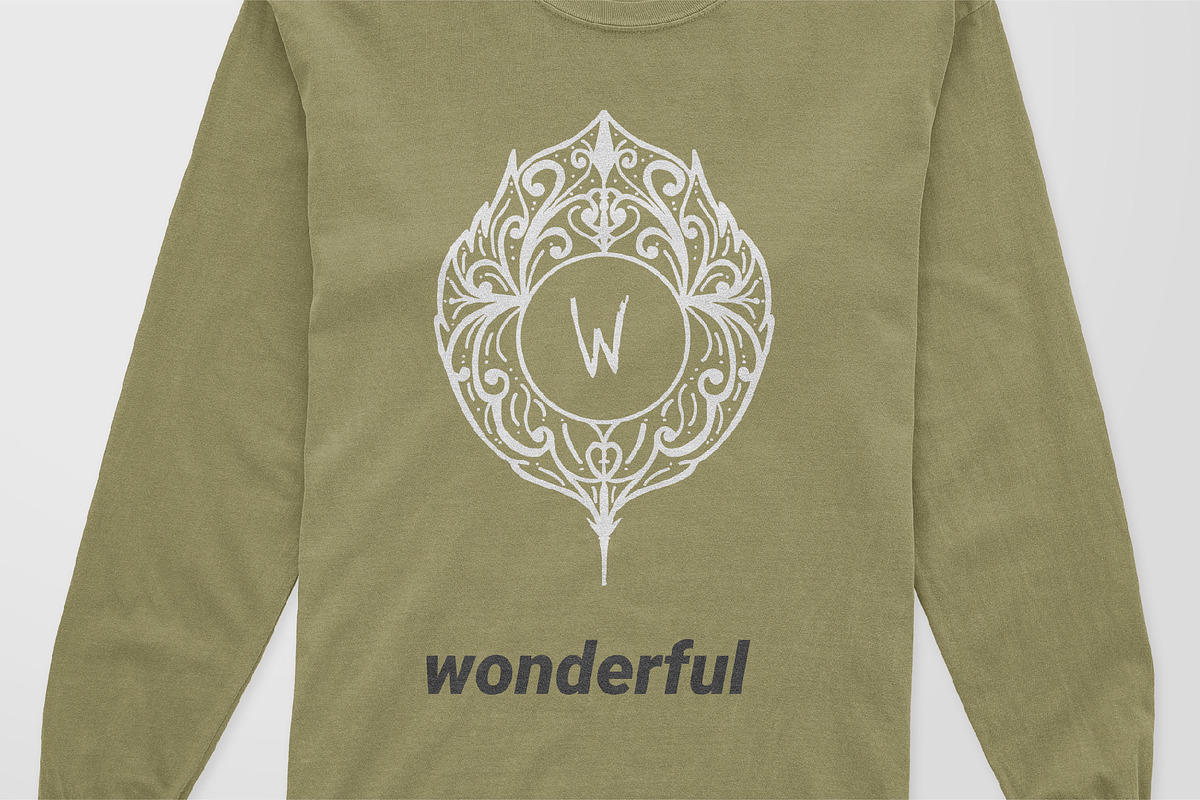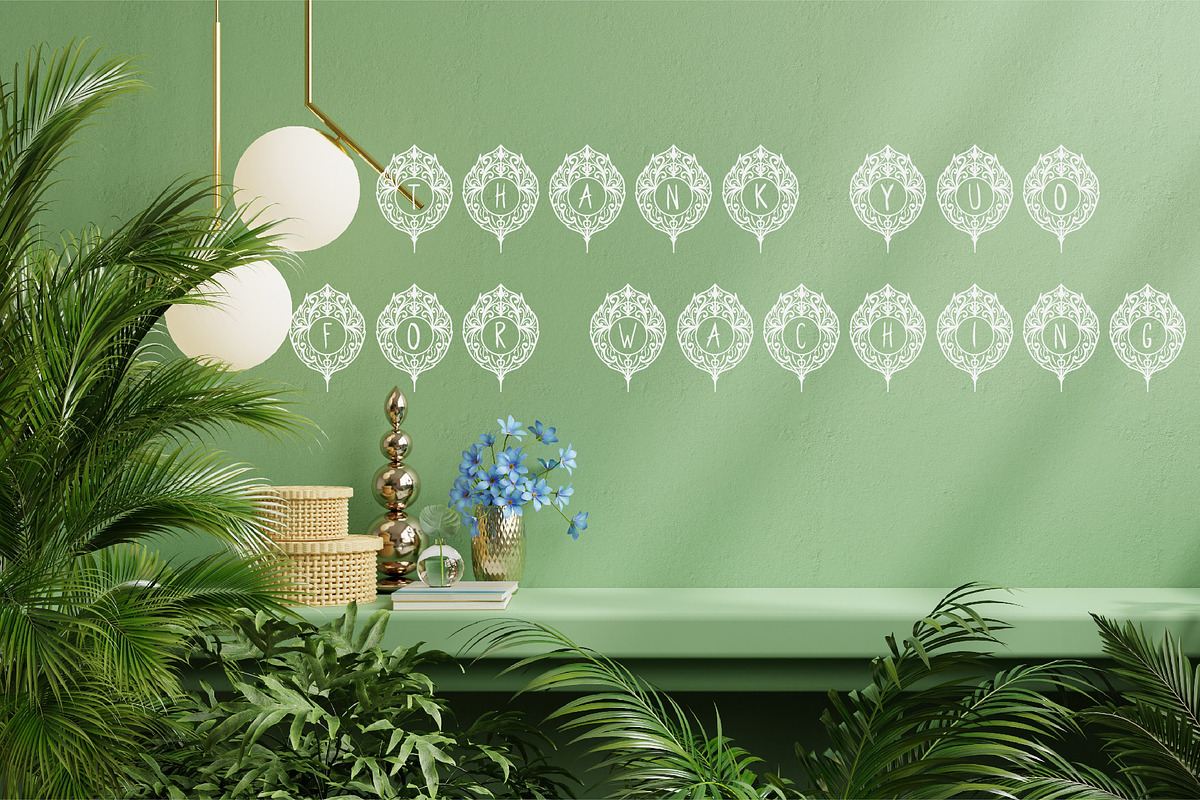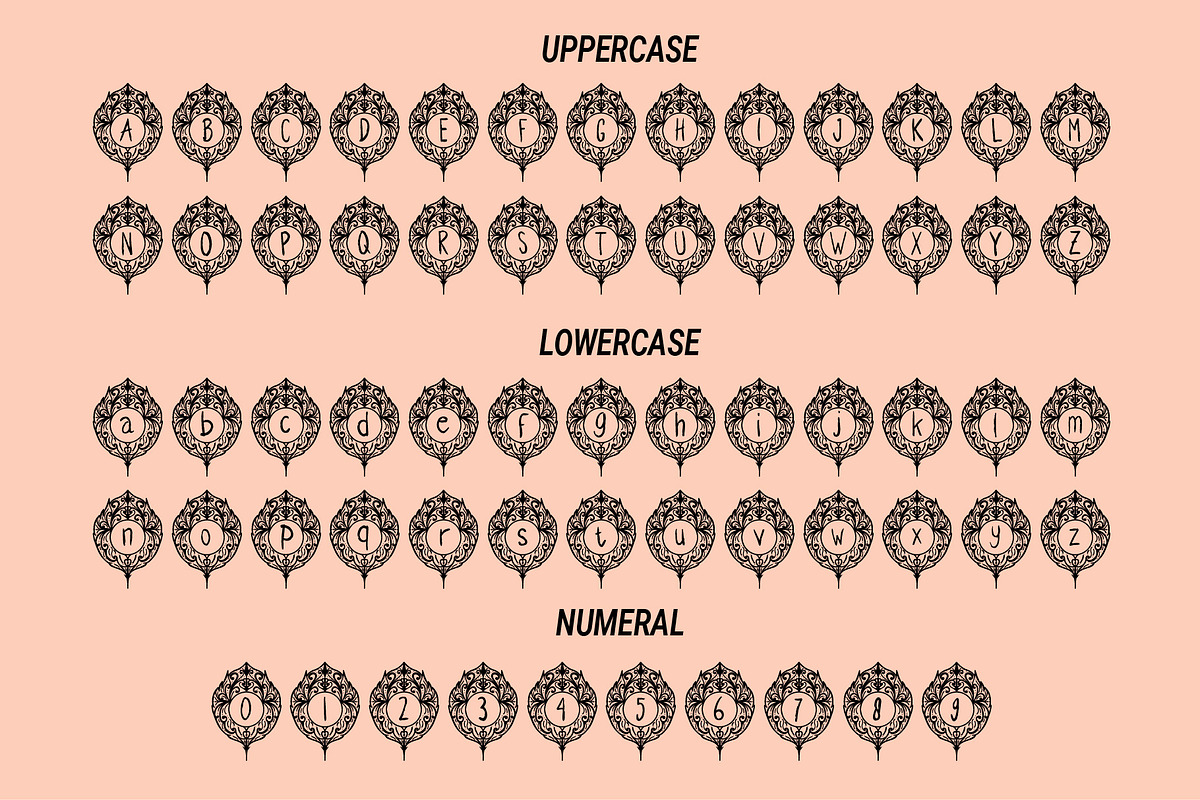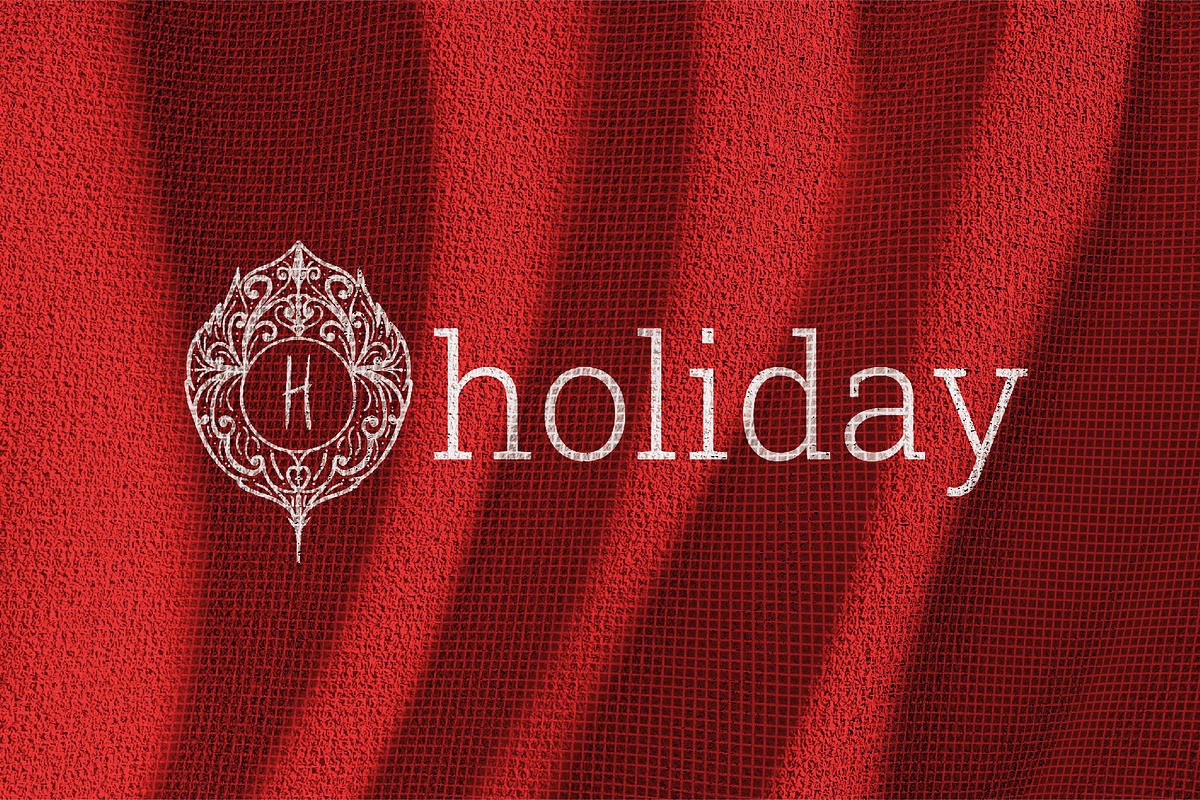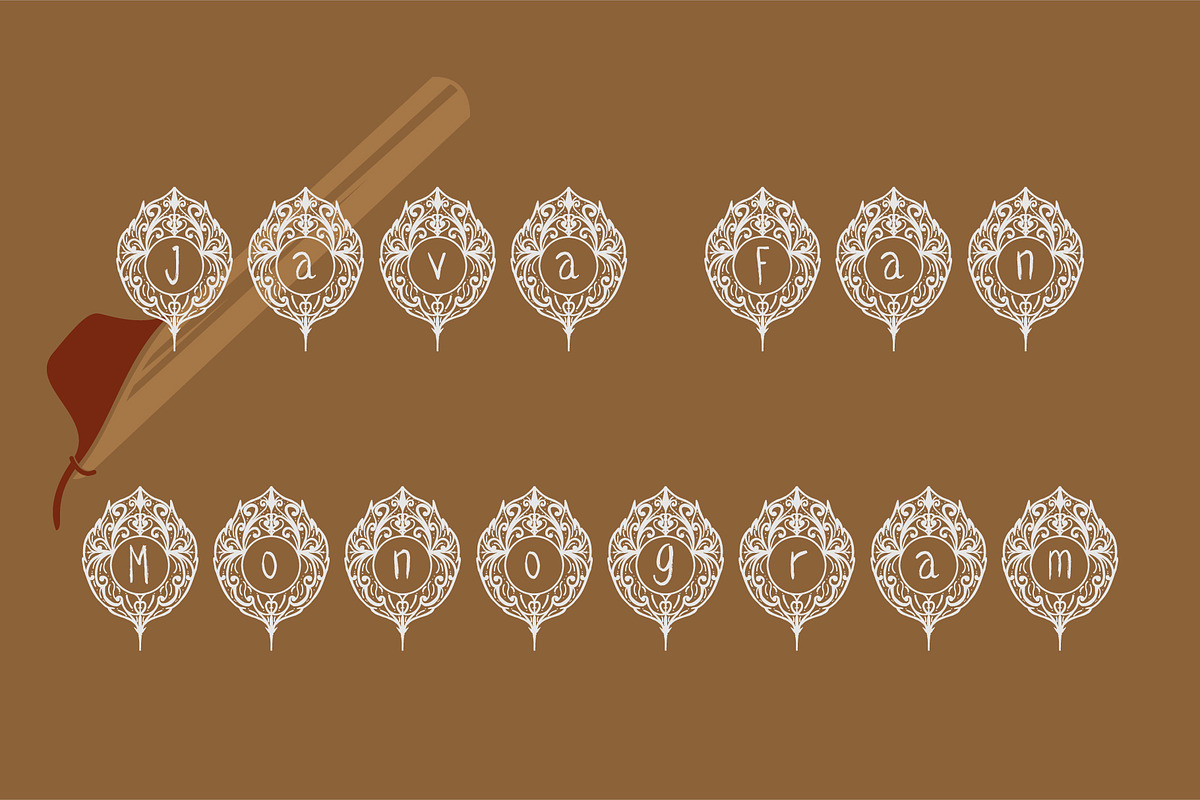
Java Fan
Java Fan Monogram is a type of writing with a traditional fan engraving, which is beautiful, for this, the name is for logo purposes, the name of the invitation letter, or something else